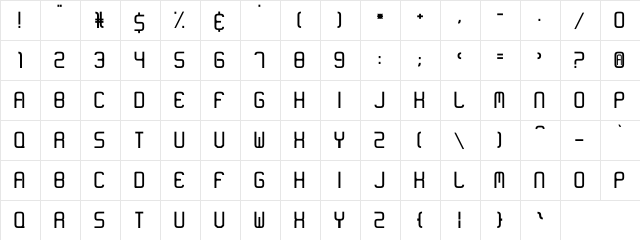
neon-like normal Font Preview
neon-like normal
Design Context for neon-like Typeface
neon-like channels digital-age aesthetics through its sharp, structured letterforms — ideal for brands that want to signal innovation.
Pro Tip: Try neon-like with generous letter-spacing in UI labels and navigation — the geometric forms benefit from room to breathe.